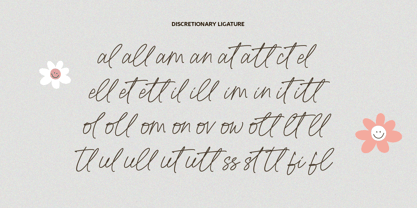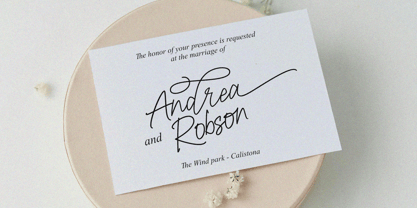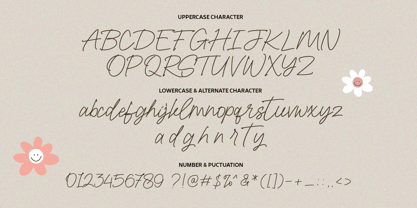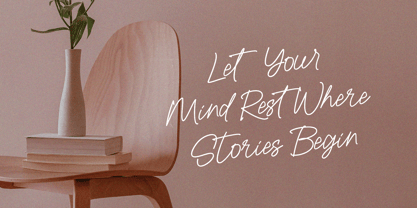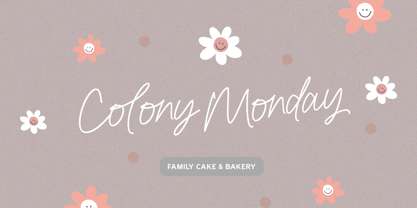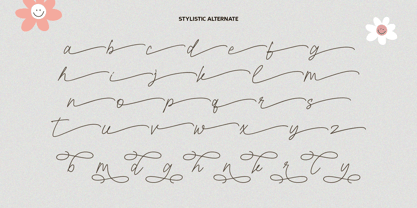
Whole Dating
by Gatype
The Whole Dating Font Family was designed by khaidir and published by Gatype. Whole Dating contains 1 styles. More about this family
Whole Dating is a sweet, versatile, unique and flexible handwritten font. Warm, jovial and compromise. This font will turn any of your project ideas into anything true works of art! This font is PUA encoded which means you can access all of the glyphs and swashes with ease!